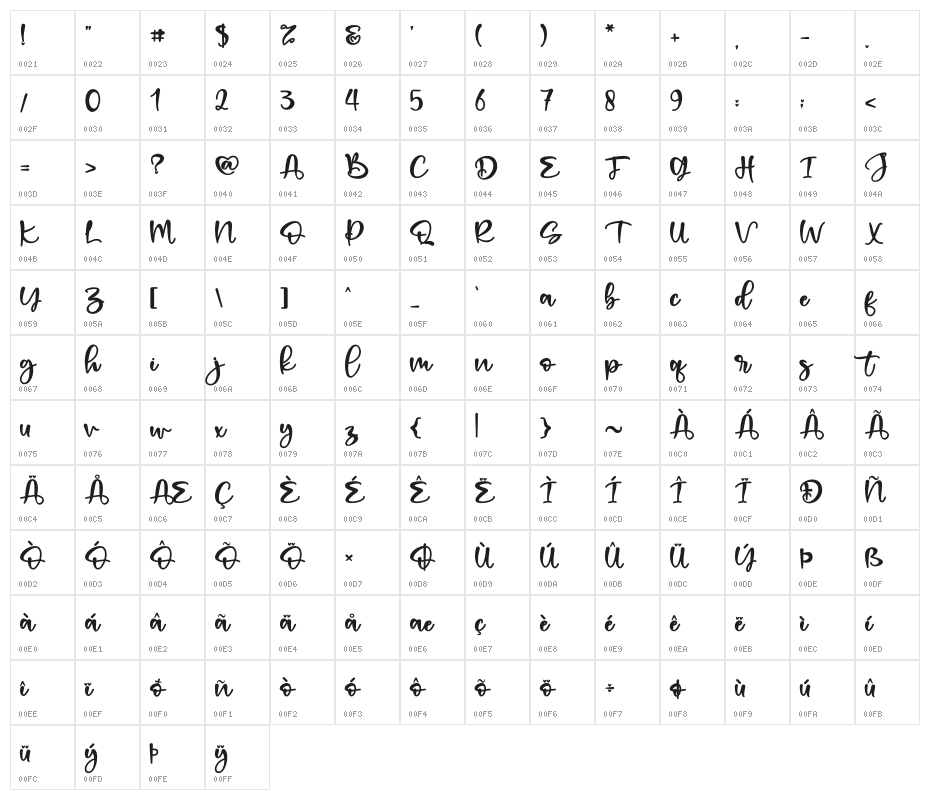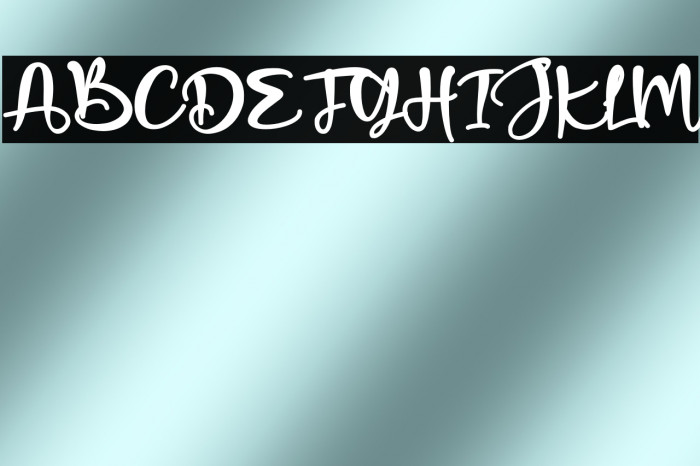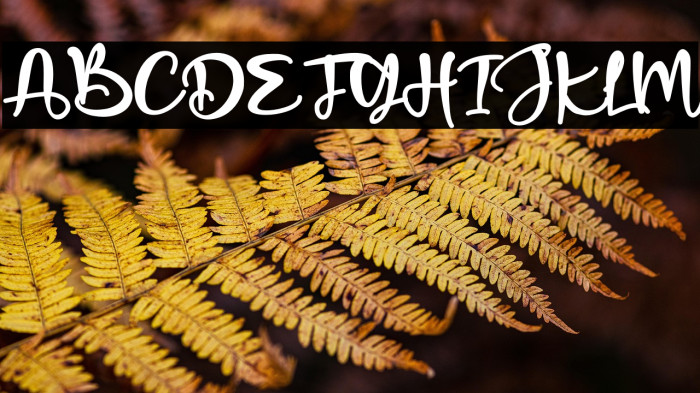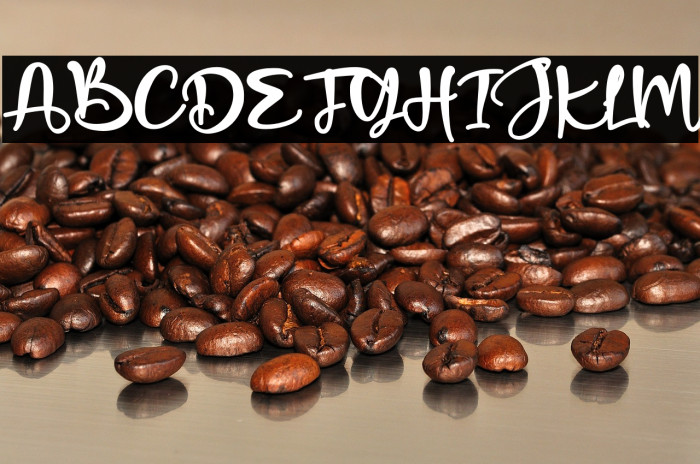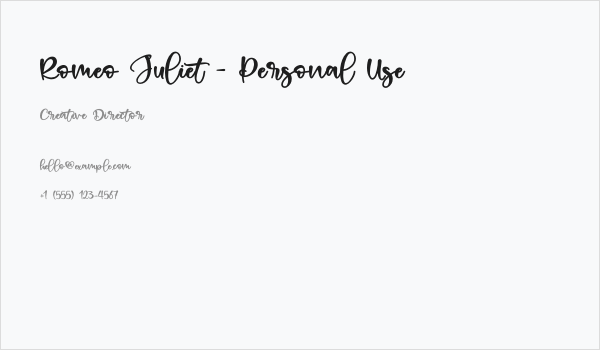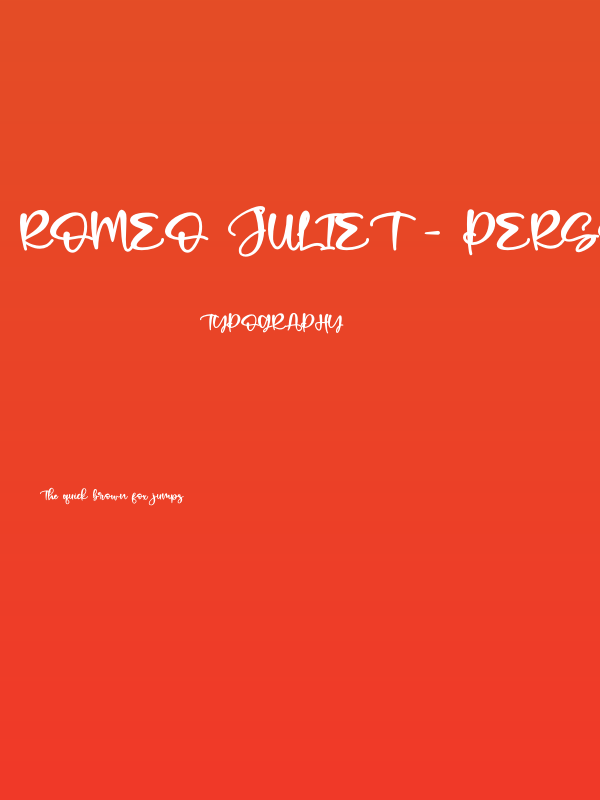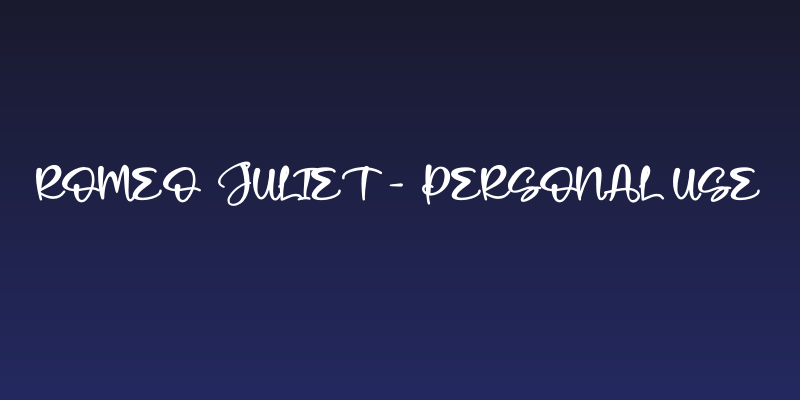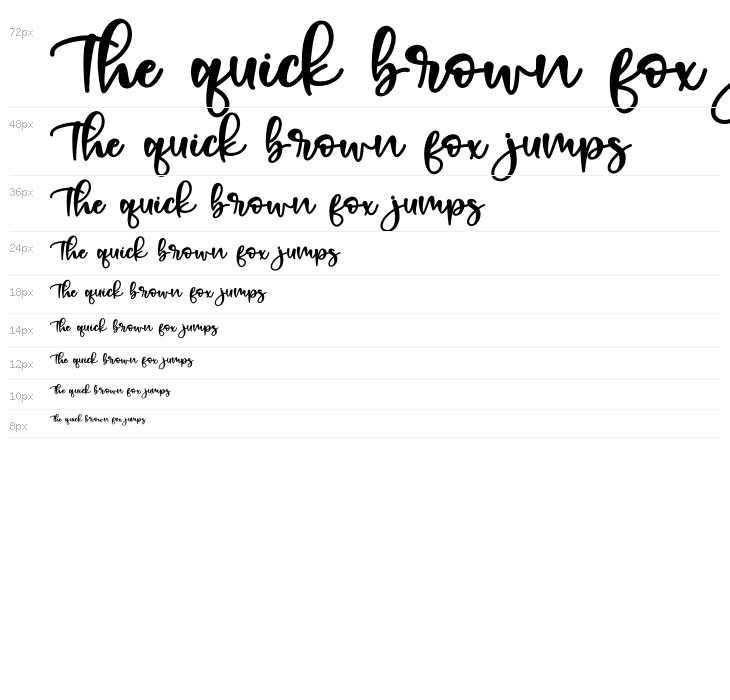
Romeo Juliet - Personal Use Font
Romeo Juliet - Personal Use Description
This font features a playful and elegant script style with a handwritten appearance. The letters are interconnected, creating a fluid and cohesive look. The uppercase letters are bold and expressive, while the lowercase letters maintain a consistent flow with loops and curves. Numbers and special characters are designed to match the overall aesthetic, adding a touch of whimsy. The font's bold strokes and smooth curves make it suitable for creative projects that require a personal touch.
| Use Case | Logos, Invitations, Social Media |
| Proposed Projects | Ideal for wedding invitations, greeting cards, branding, and social media graphics. |